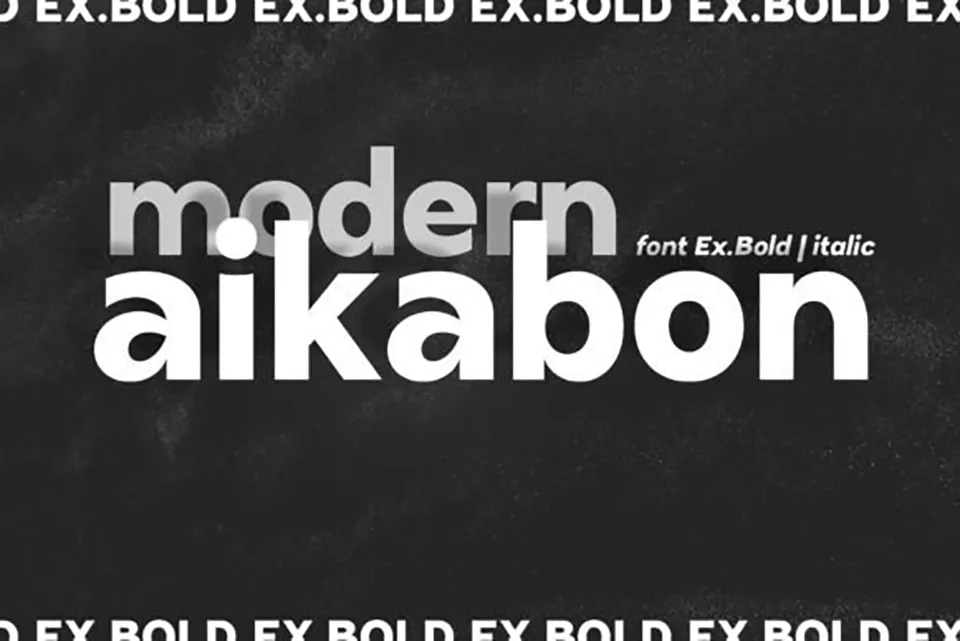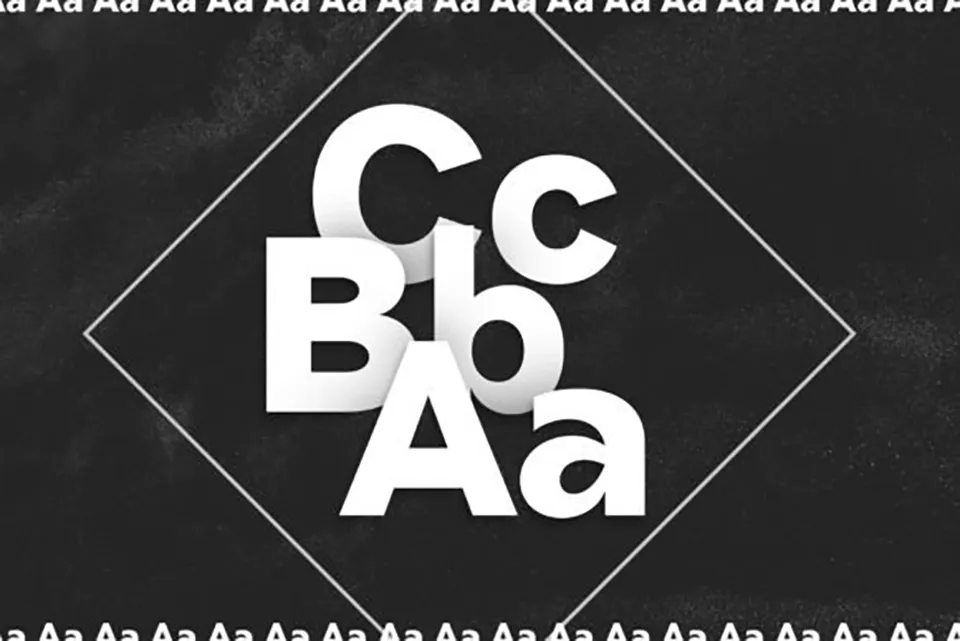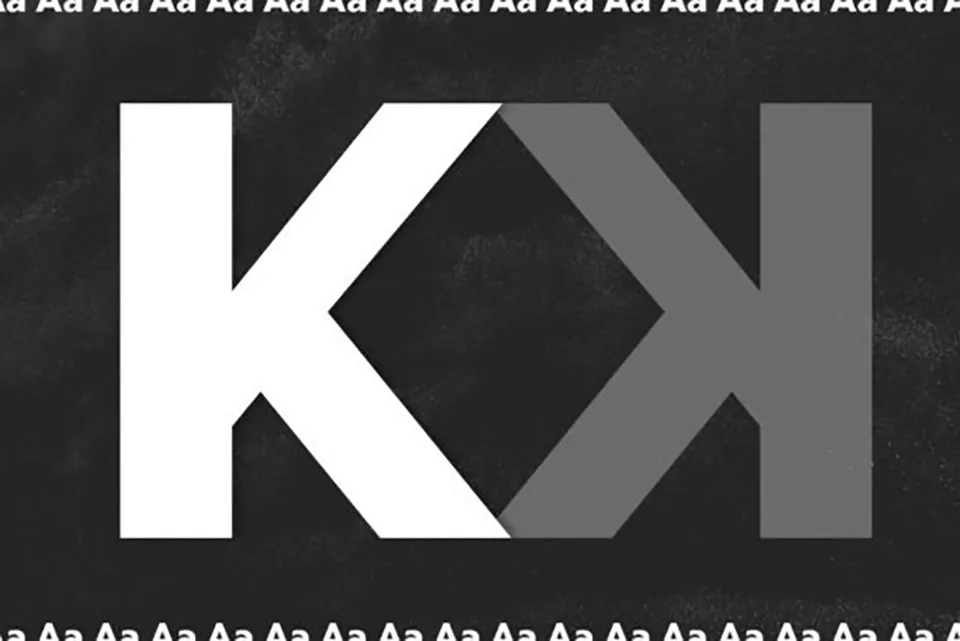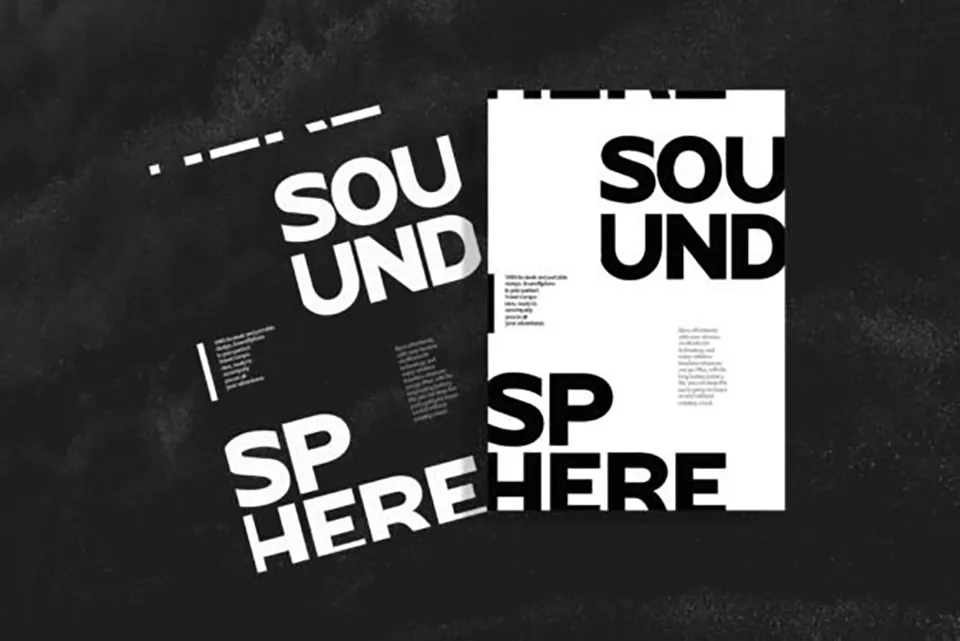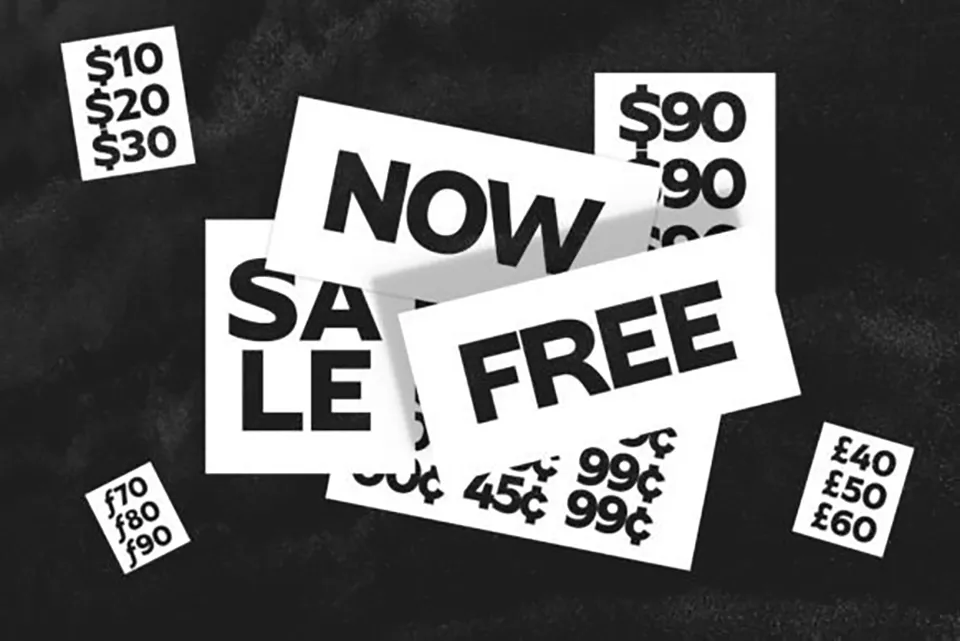
Aikabon Font
Aikabon Font is a modern sans-serif font that features sleek lines and bold design elements, making it perfect for grabbing attention in headlines, logos, print materials, posters, and advertising campaigns4611. This contemporary typeface exudes confidence and sophistication while maintaining versatility that allows it to seamlessly integrate into a variety of design projects46. With its clean aesthetic and urban appeal, Aikabon ensures your message will stand out with boldness and style, commanding attention wherever it’s used24. The font supports Latin language systems and includes 403 glyphs, providing comprehensive character coverage for professional typography needs.